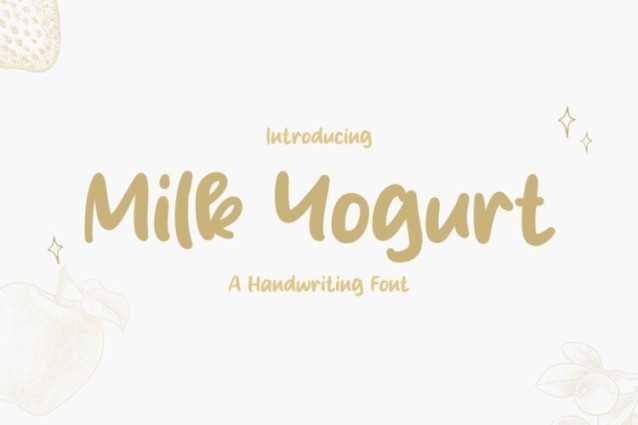
Milk Yogurt Font
Milk Yogurt Font is a simple and friendly handwritten font. Its natural and unique style makes it incredibly fitting to a large pool of designs. The only limit is your imagination!